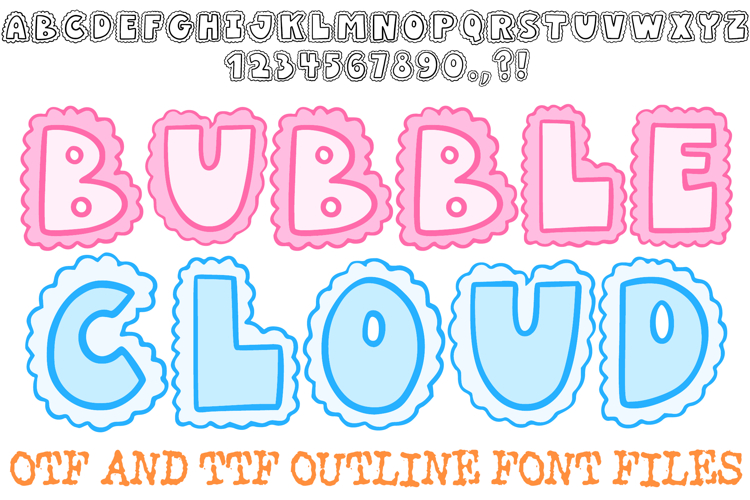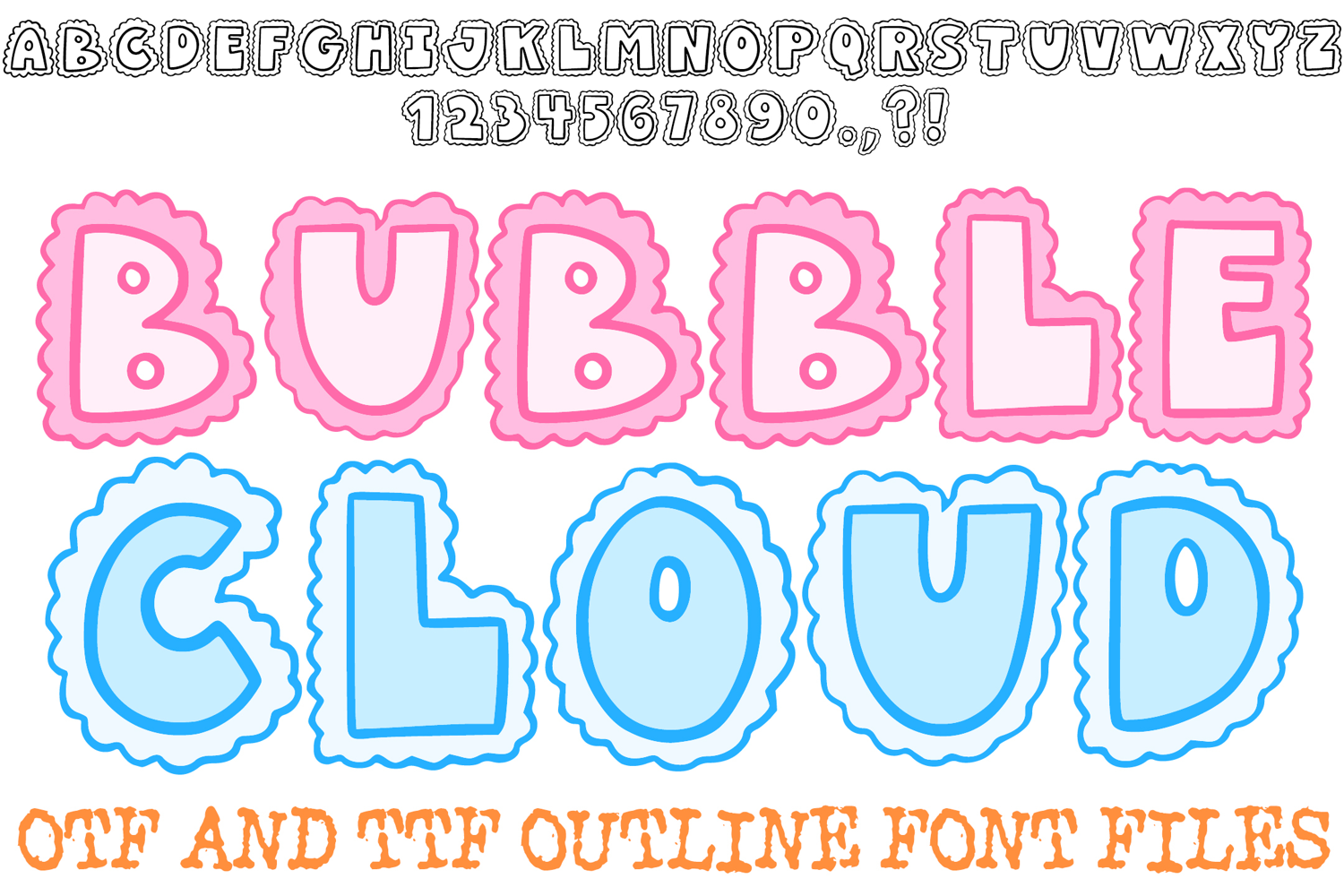
Bubble Cloud Font Doodle Lettering Fluffy Cartoon ABC OTF
Float away with the Bubble Cloud Font! This hand-drawn display alphabet features bold, bubbly characters encased in a charming, scalloped cloud-like border. It is the perfect choice for whimsical children’s branding, dreamy party invitations, nursery posters, and any creative project that needs a soft, playful touch.
The unique, layered look of each character ensures your headlines grab attention while maintaining a soft, artisan feel. Whether you're designing for a cozy baby announcement, quirky classroom decor, or creative digital scrapbooking, the Bubble Cloud Font delivers a professional, whimsical look that stands out.
Scalloped Cloud Details: Every character features a unique, wavy border that gives them a distinct, fluffy personality.
Bubbly Cartoon Silhouette: The thick, rounded block style ensures maximum readability for headlines and logos, even with the detailed outlines.
Versatile Artisan Feel: The hand-drawn aesthetic gives your text an authentic touch, avoiding the stiffness of standard digital fonts.